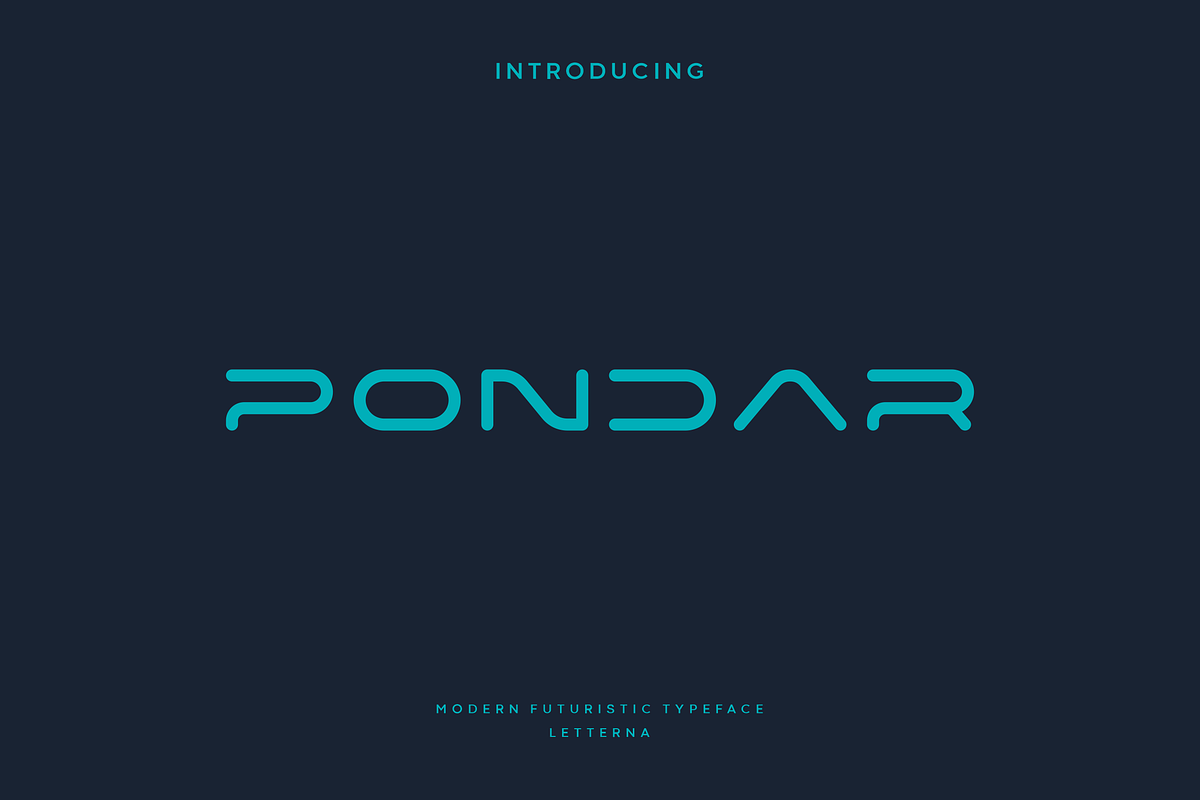
Pondar - Modern Futuristic Typeface Free Download
The Pondar - Modern Futuristic Typeface Free Download is a sleek and innovative typeface designed to bring a futuristic and cutting-edge look to your designs. Perfect for creating bold logos, tech branding, sci-fi posters, social media graphics, and more, this font adds a contemporary and high-tech vibe to your projects. Please note, for commercial use, a license must be purchased. You can download it for free for testing purposes.
With its clean lines, geometric shapes, and modern feel, the Pondar - Modern Futuristic Typeface Free Download is ideal for projects that require a sleek, digital aesthetic. Whether you're designing for tech startups, digital products, or futuristic campaigns, this font will give your work a modern and innovative touch.